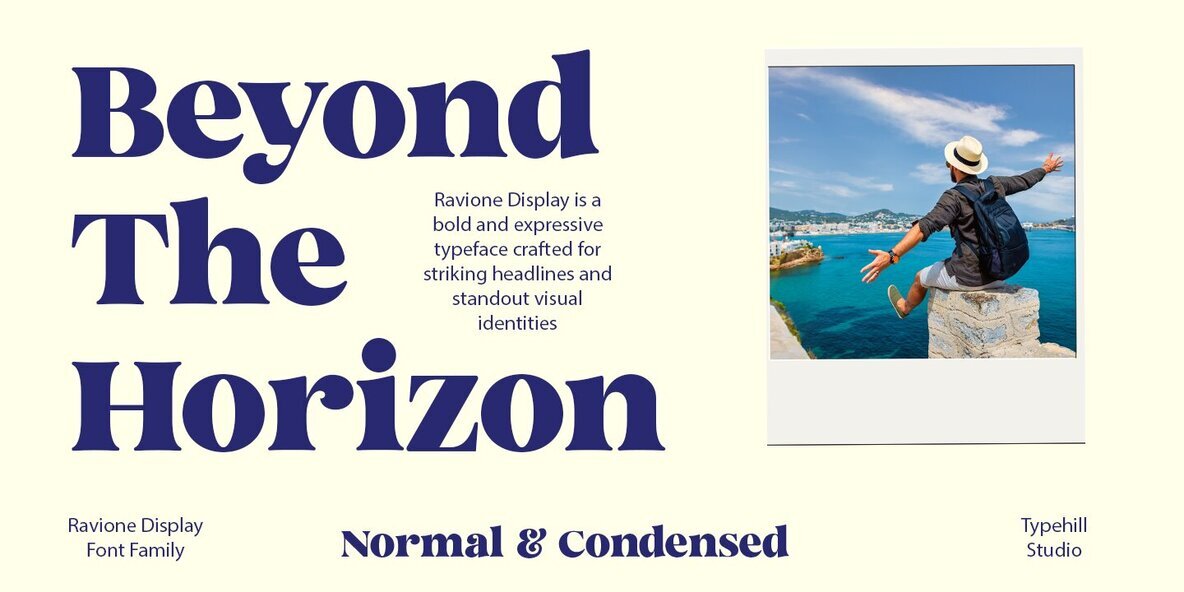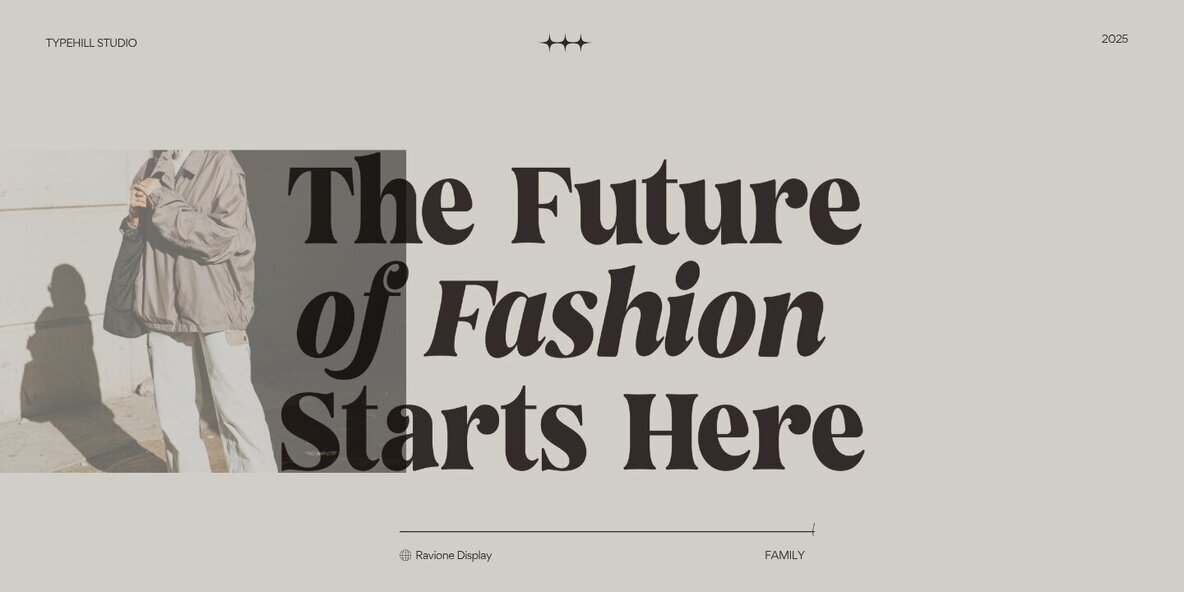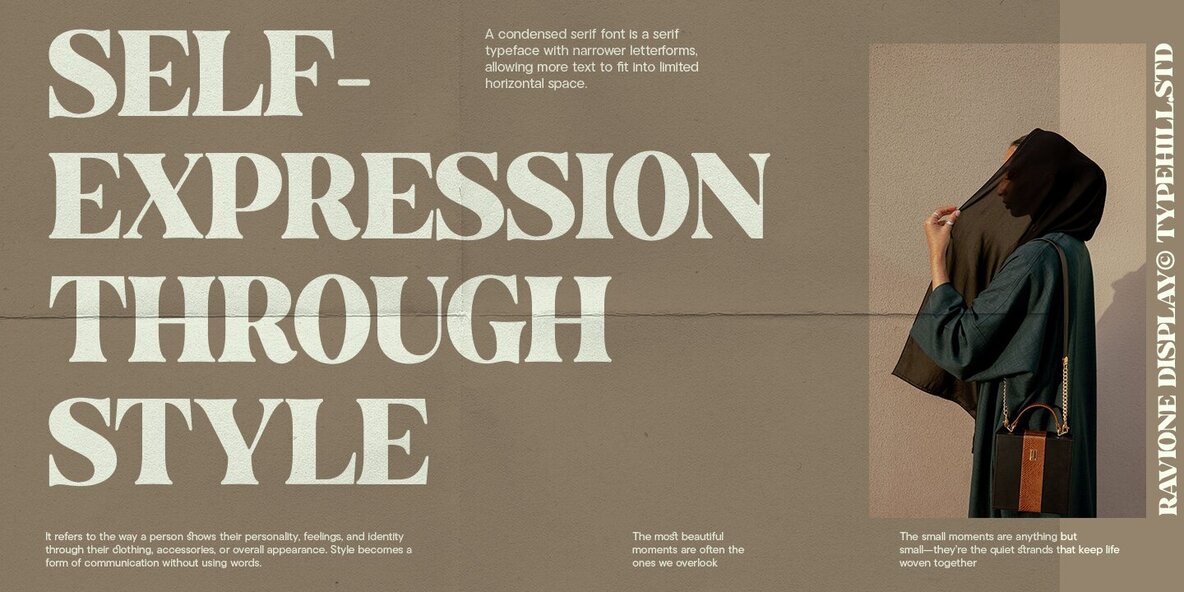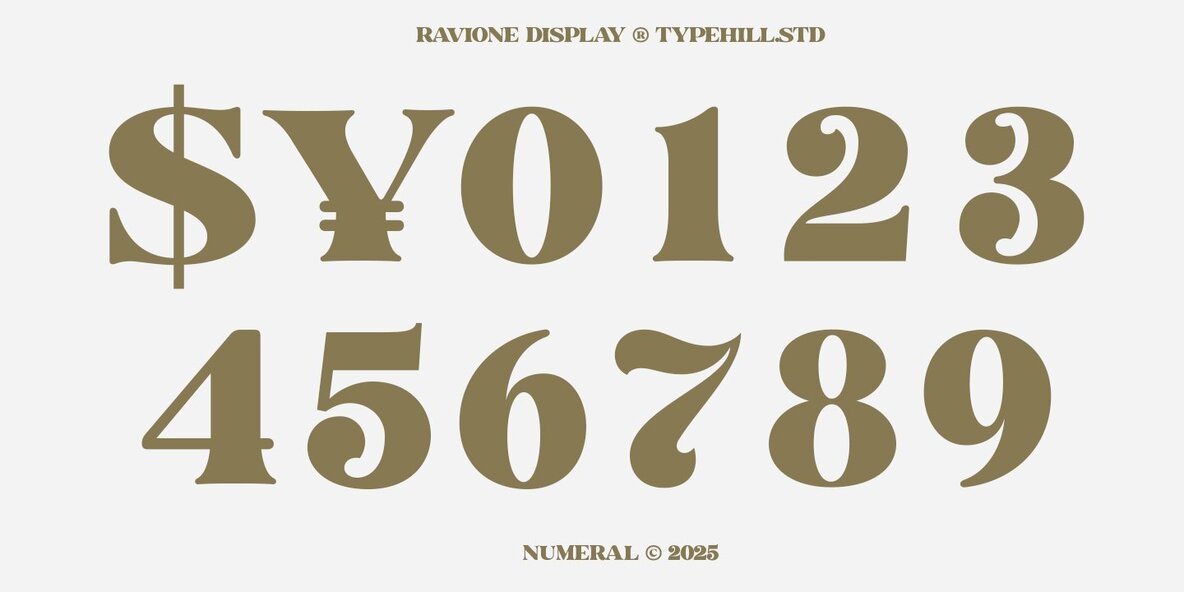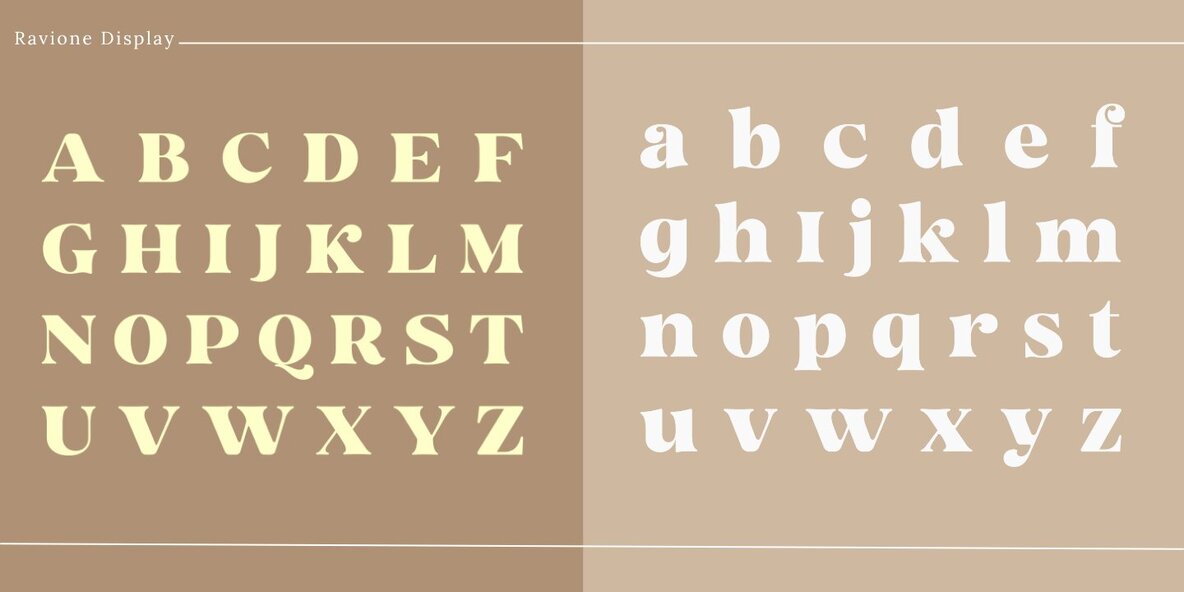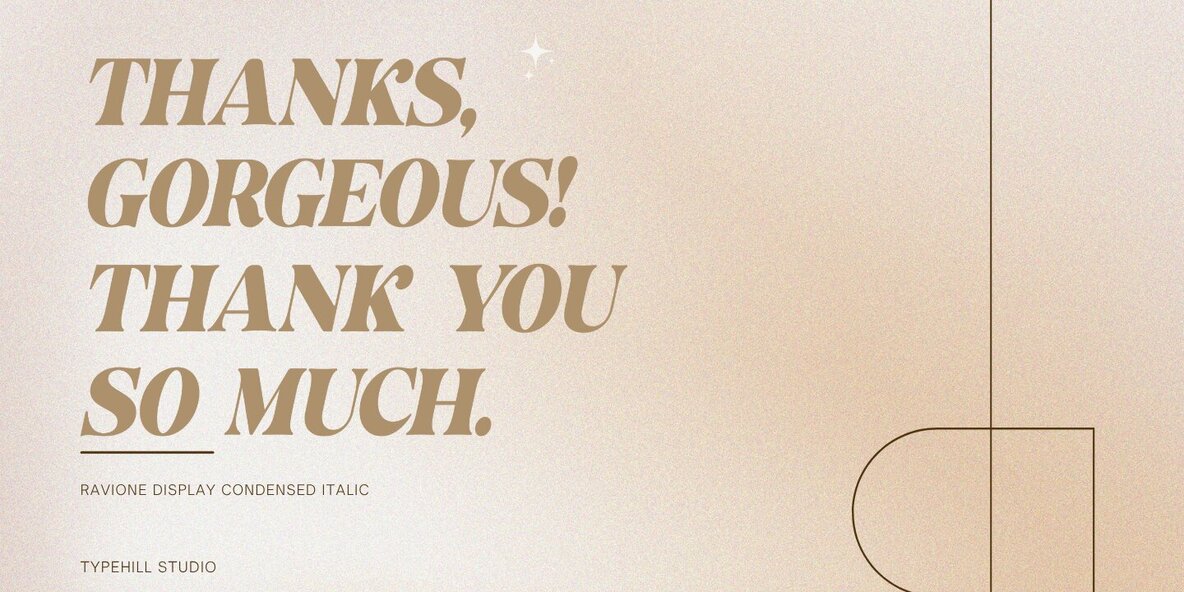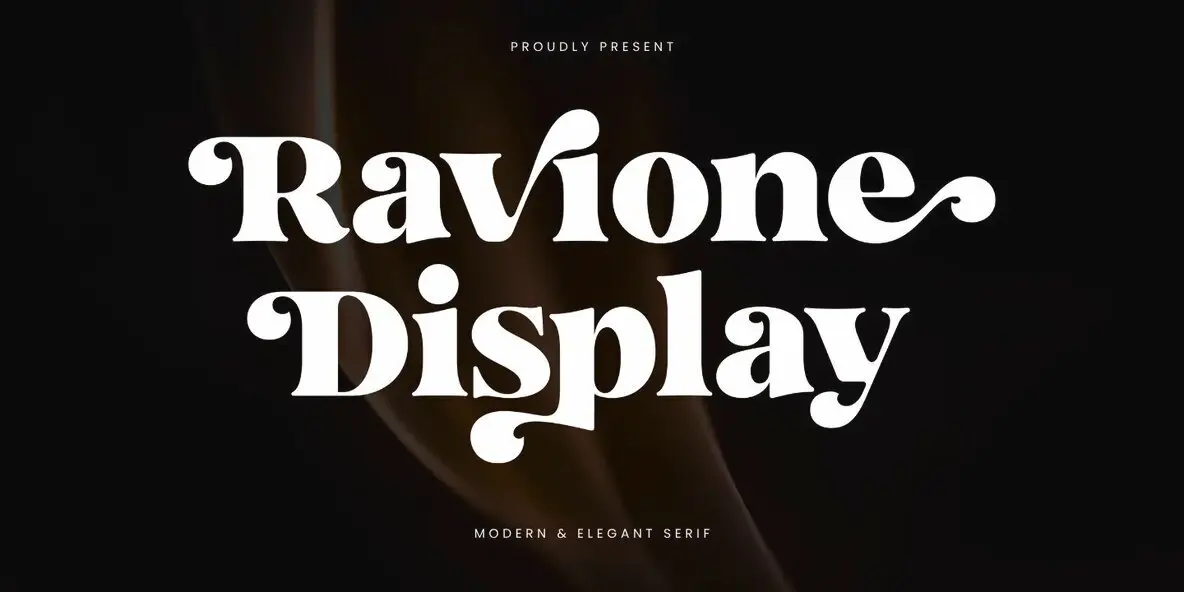
Ravione Font
Ravione Display presents a balance of modern refinement and classic extravagance, making it a sophisticated option for designers. The exaggerated curves and strong strokes are complemented by high-contrast weight distribution. Playful terminals that curl inward lend distinct character, while its overall form speaks to both glamour and a subtle retro sensibility. Use Ravione Display to draw attention in editorial layouts, fashion branding, or packaging that calls for a dynamic typographic identity. Features: This type family adapts seamlessly to projects requiring a memorable serif with strong presence. Ravione Display stands as a resource for creative professionals seeking distinction and poise in their typographic work.Ravione Display: Modern Serif With Retro Elegance
Designed For Versatility